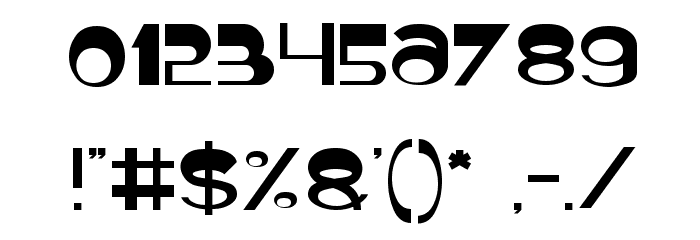
Gelombang radio Font
This font features a unique and modern design with a futuristic flair. The uppercase letters are bold and geometric, with sharp angles and clean lines that create a striking appearance. The lowercase letters maintain a similar style but with a slightly softer edge, providing a nice contrast to the uppercase. Numbers are consistent with the overall design, offering a bold and easily readable appearance. Special characters are creatively integrated, maintaining the font's distinct style. This font is ideal for projects that require a modern and edgy look.
- Proposed Projects: Ideal for branding, advertising, posters, and digital media projects that require a modern and bold aesthetic.